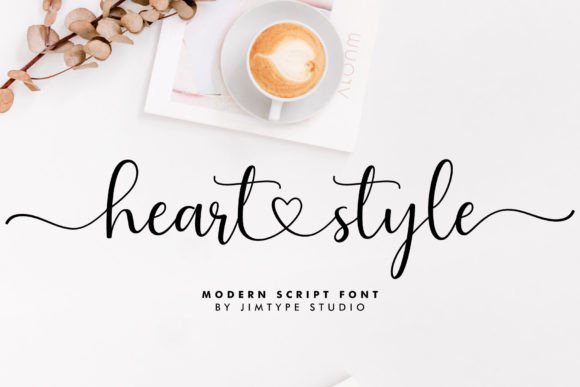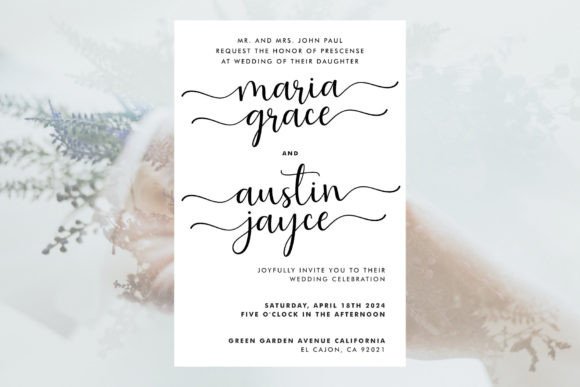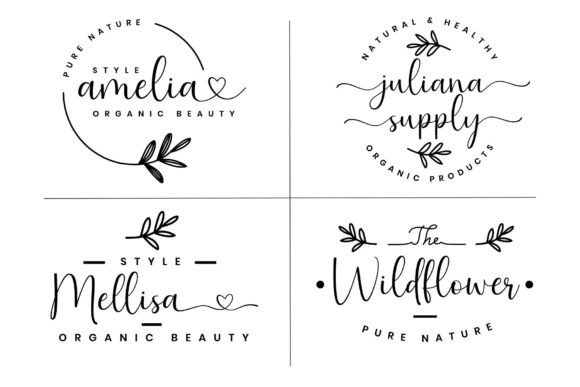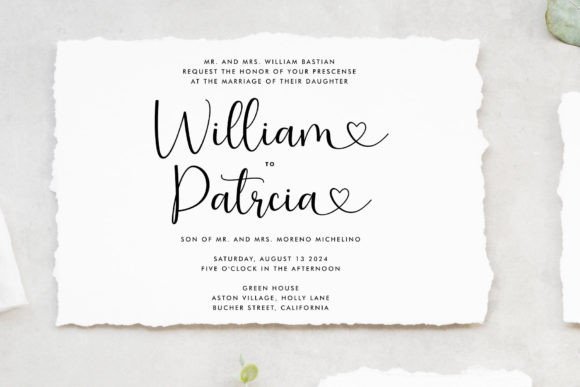
Heart Style Font
About the Heart Style Font
The Heart Style Font is here to transform your projects with its distinctive character and style. Elevate your wedding and branding projects with the enchanting “Heart Style Font.” This script font seamlessly blends elegance and romance, making it the perfect choice for wedding invitations, heartfelt messages, and distinctive logo branding.
Whether you’re crafting a wedding masterpiece or building a brand that speaks volumes about love and connection, the Heart Style Font is your artistic. Imbue your projects with the essence of romance and refinement—choose Heart Style Font for a truly captivating design experience!
Heart Style Font Usage Examples
Heart Style Font Example